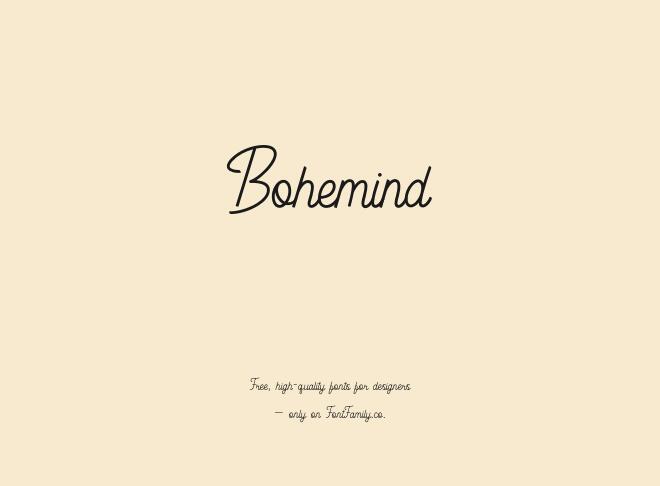
Bohemind Font
Bohemind Font is a unique, rustic, and vintage script font that carries an old-world charm. Inspired by classic calligraphy, it brings a touch of elegance to any design. Bohemind Font is perfect for branding, logos, wedding stationery, social media posts, and vintage designs. Its distinctive script style sets it apart from other fonts, making it an excellent choice for designers who want to add a touch of vintage aesthetic to their projects. The font is carefully crafted to provide a balance between classic and modern design. The unique curves and swashes make Bohemind Font not only beautiful but also versatile. Its character set supports multiple languages, making it a great choice for international projects. With its unique style and versatility, Bohemind Font is a must-have for any professional designer's toolkit.